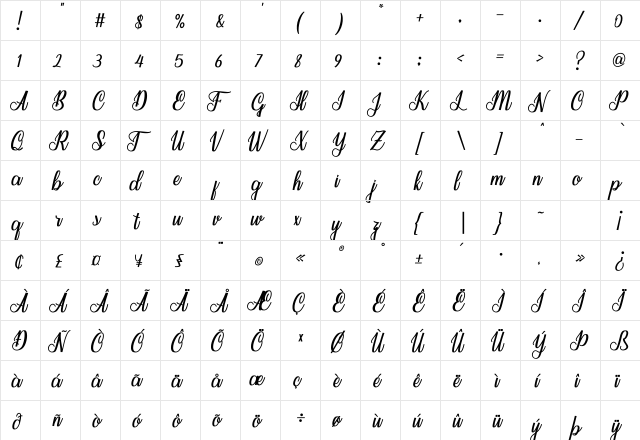
SeindahCinttya Regular Font Preview
SeindahCinttya Regular
SeindahCinttya Regular Font Details
Design Context for SeindahCinttya Typeface
SeindahCinttya is a composed and adaptable typeface that performs quietly and consistently across a wide range of design contexts.